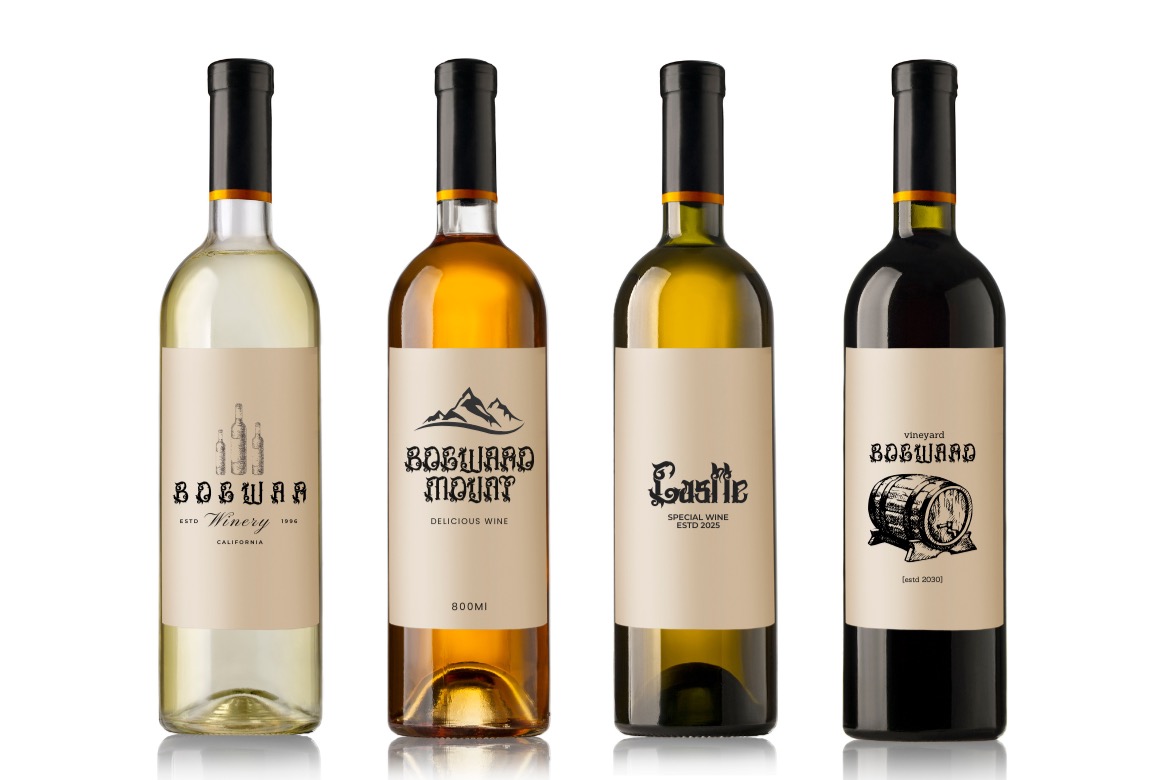
Bogward draws from the historic Blackletter tradition—echoing medieval manuscripts, early European printing, and the unmistakable presence of Fraktur display type. Its letterforms carry that old-world gravity: sharp, sculpted strokes balanced with ornate curves that feel ceremonial, deliberate, and rooted in time.
Built for classic impact, Bogward delivers a strong heritage tone without feeling fragile—bold weight, crisp angles, and distinctive counters create a confident, timeless silhouette. The detailing feels hand-forged rather than generic: carefully shaped terminals, dramatic inner cuts, and refined rhythm that speaks to craftsmanship and legacy, as if each character were carved, inked, and pressed with intention. This structure naturally projects authority and prestige, making Bogward ideal when you want typography to lead—whether for emblems, titles, packaging marks, certificates, editorial headers, or brand identities that demand a commanding voice.
While its spirit is historical, Bogward remains highly relevant in modern design thanks to a display-forward clarity and typographic flexibility. A generous character set with accented Latin support, plus OpenType alternates and ligatures, helps you fine-tune tone—from traditional and formal to more stylized and expressive—so it can feel at home in contemporary logos, posters, apparel graphics, music branding, or premium product visuals.